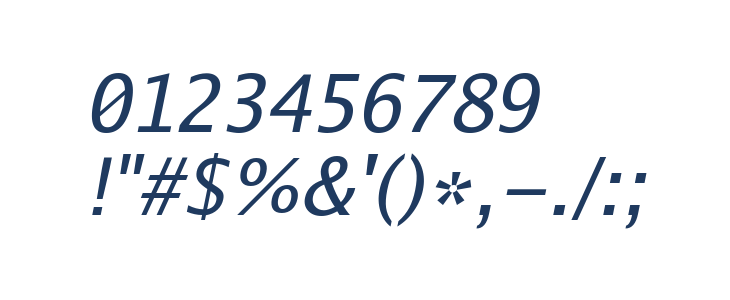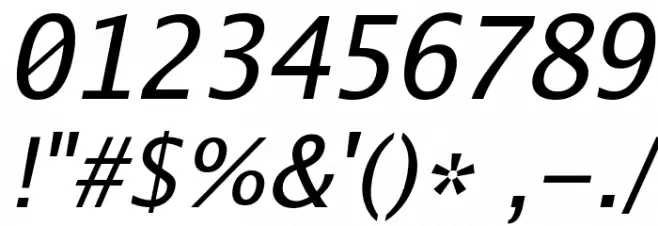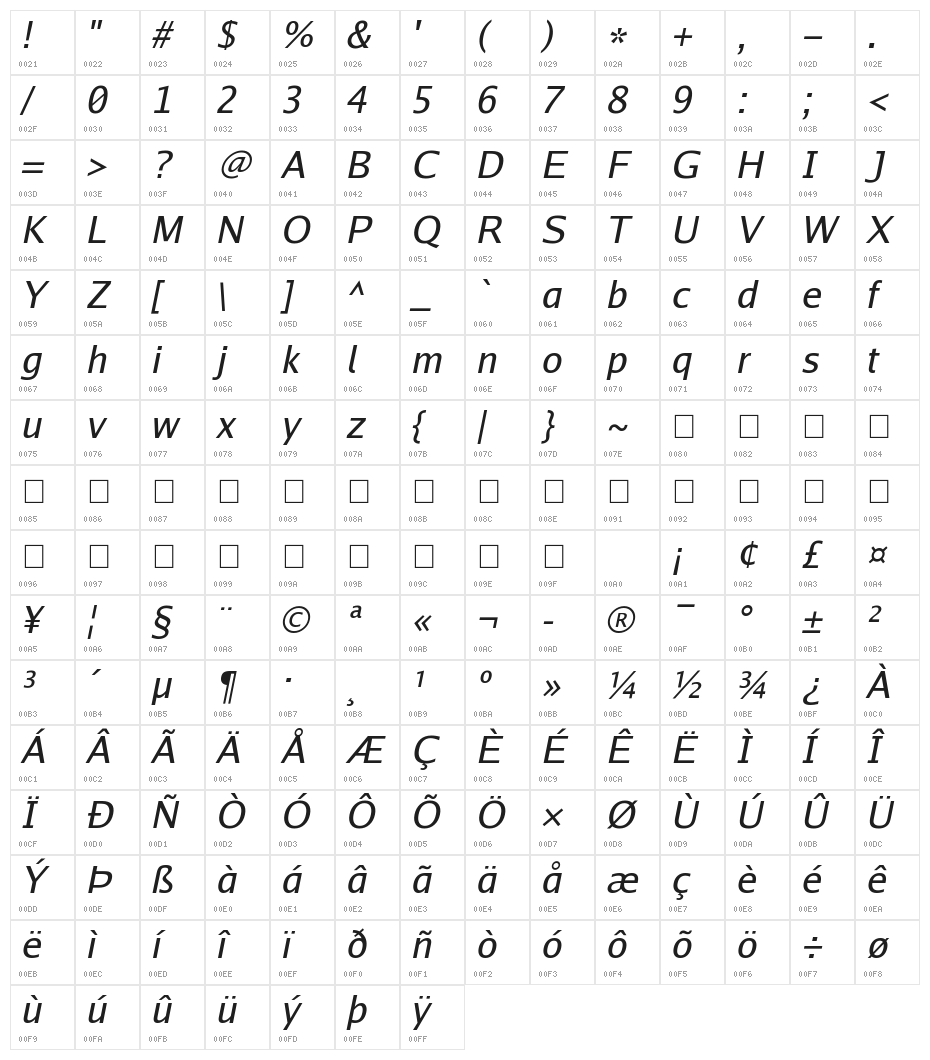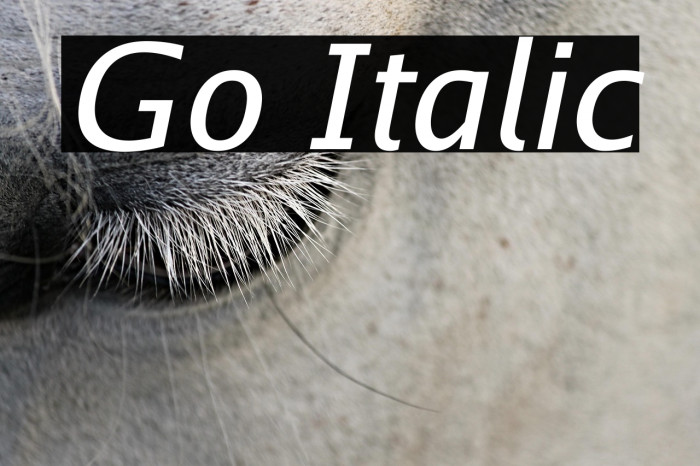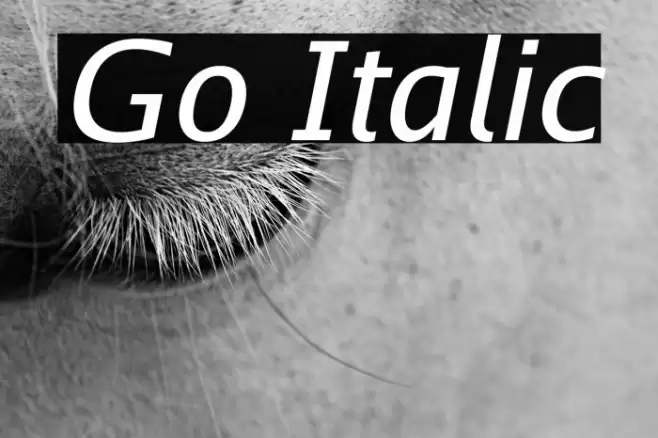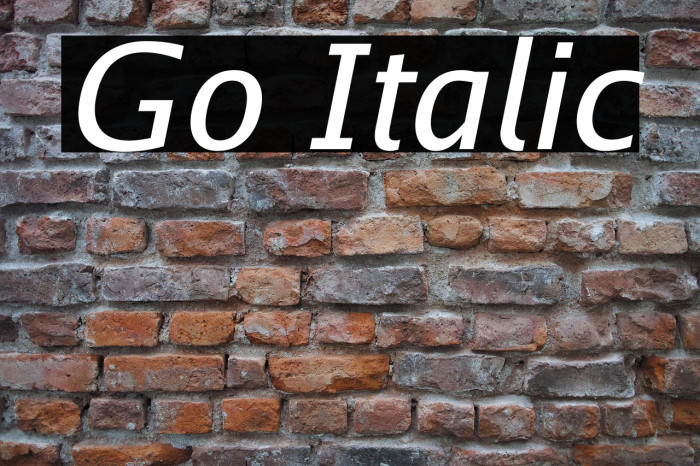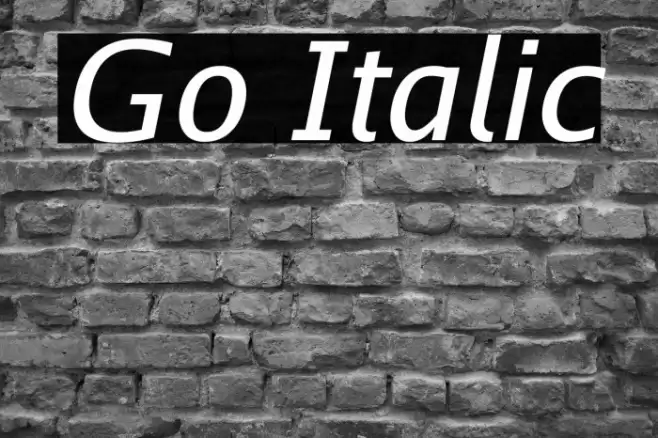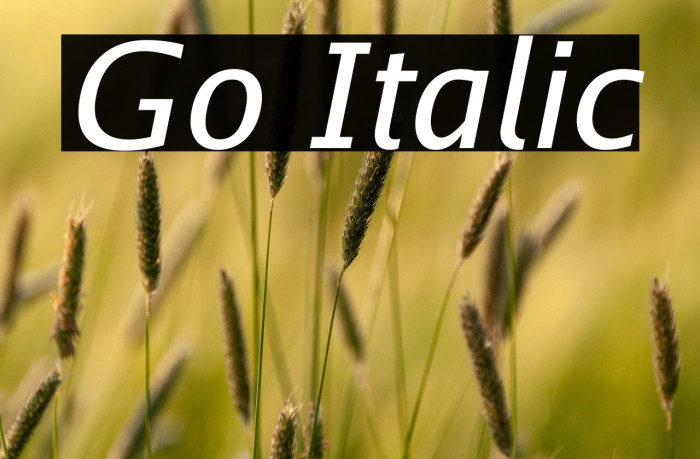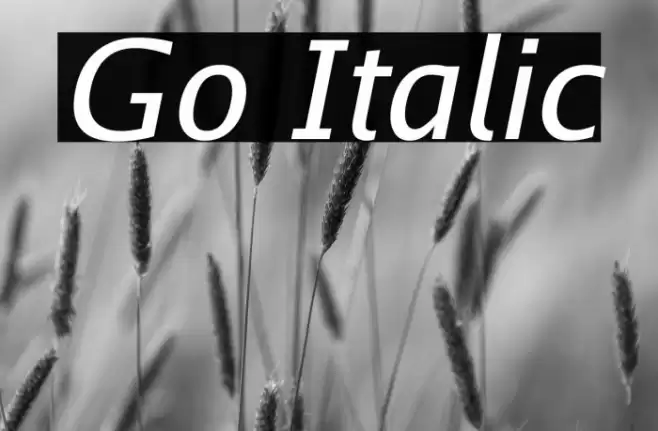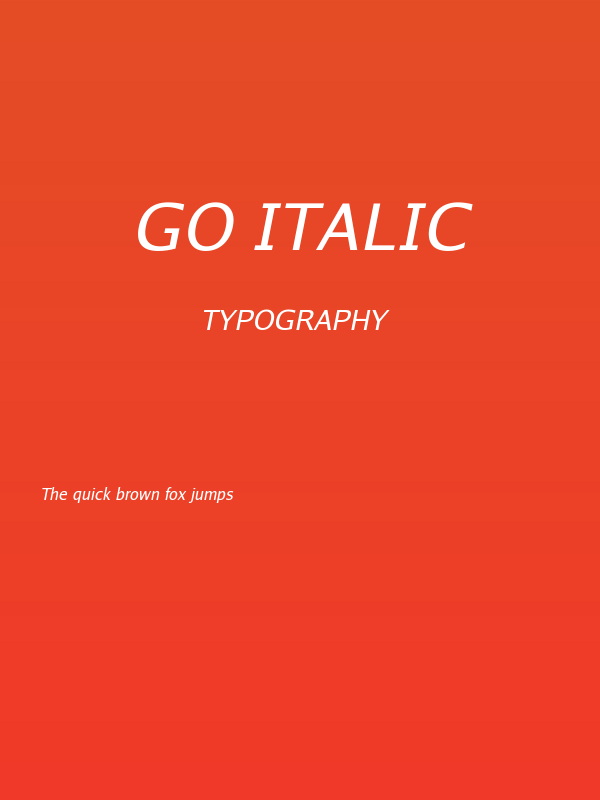
Go Italic Font
Go Italic Description
This font features a sleek and modern design with a distinct italic slant, giving it a dynamic and forward-moving appearance. The characters are well-proportioned, with a clean and smooth finish that enhances readability. The uppercase and lowercase letters maintain a consistent style, while the numerals and special characters integrate seamlessly into the overall design. The font's simplicity and elegance make it versatile for various applications, from digital interfaces to print media.